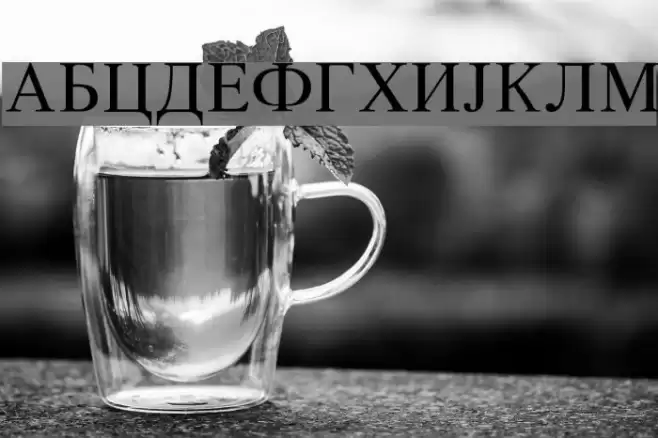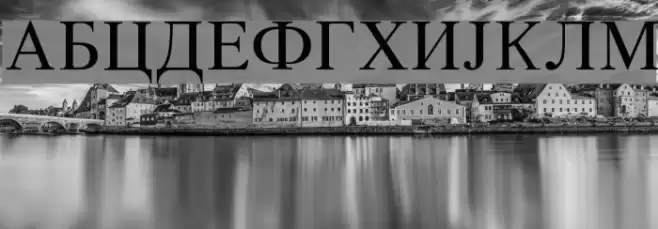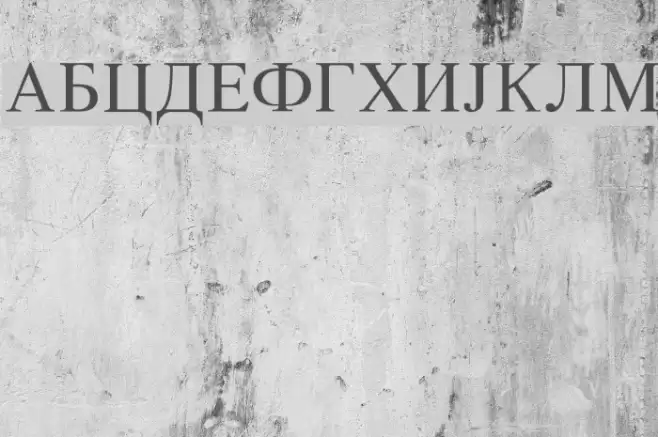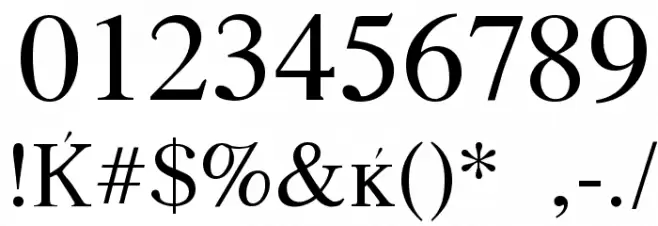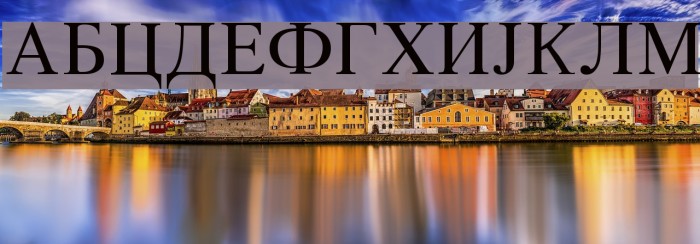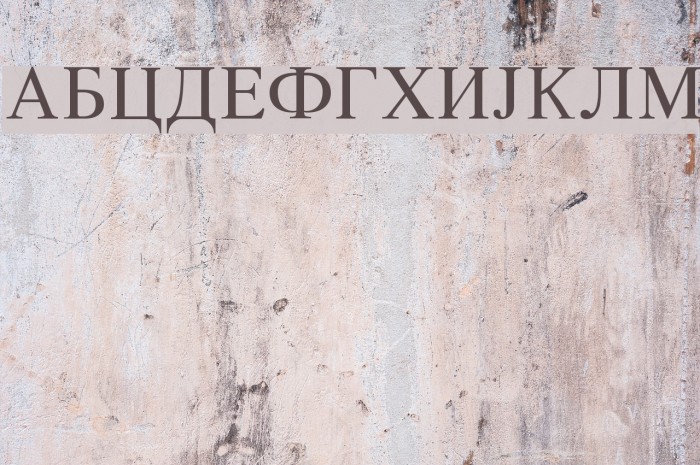
Macedonian Font
Macedonian Description
This font features a classic serif style with distinct, sharp serifs that give it a traditional and formal appearance. The characters are well-defined with a moderate contrast between thick and thin strokes, enhancing readability. The uppercase letters are bold and commanding, while the lowercase letters maintain a consistent style with slightly more delicate strokes. The numerals are clear and balanced, making them suitable for both text and display purposes. Special characters are included, maintaining the overall aesthetic of the font. The spacing between characters is normal, providing a harmonious flow in text.
A classic serif font with sharp serifs and moderate stroke contrast from Uncategorized fonts.
- Proposed Projects: Ideal for formal documents, editorial design, book publishing, and branding projects that require a traditional and authoritative look.
- Overall Style: Classic